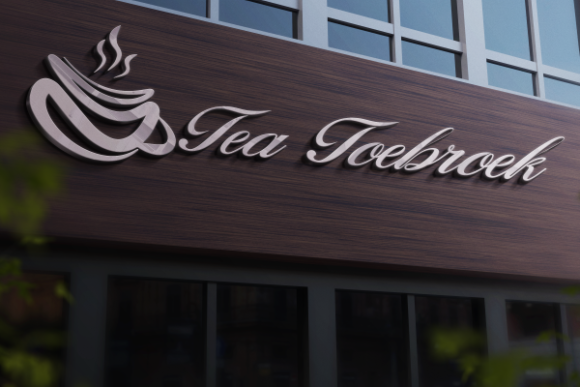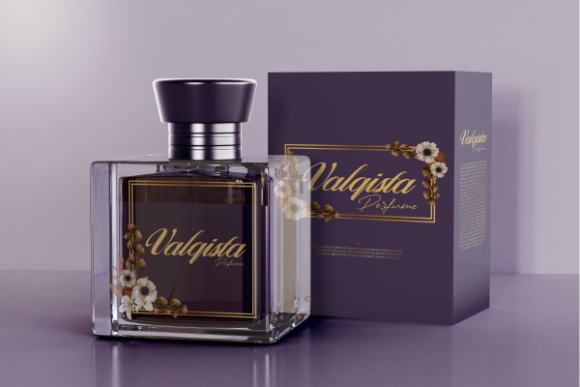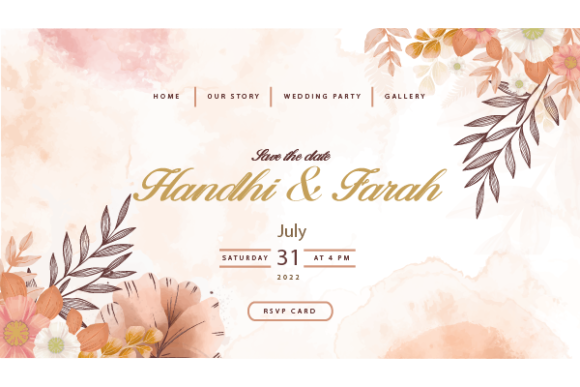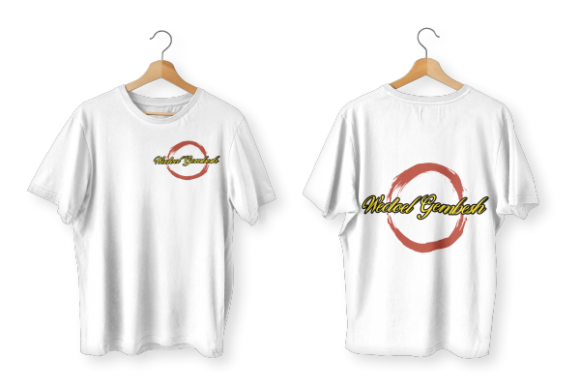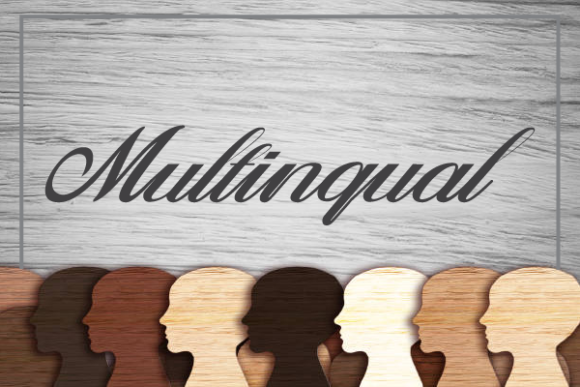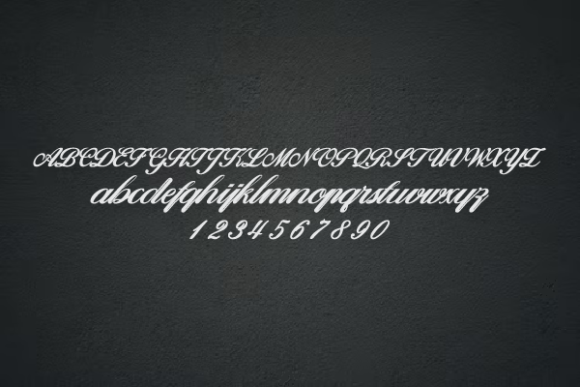
Jinayra Font
About Jinayra Font
Jinayra is an elegant script font with a contemporary atmosphere and impeccable form, inspired by timeless classic calligraphy. Not too thin and not too thick, balanced and varied, this font was designed to enhance the beauty of your projects.